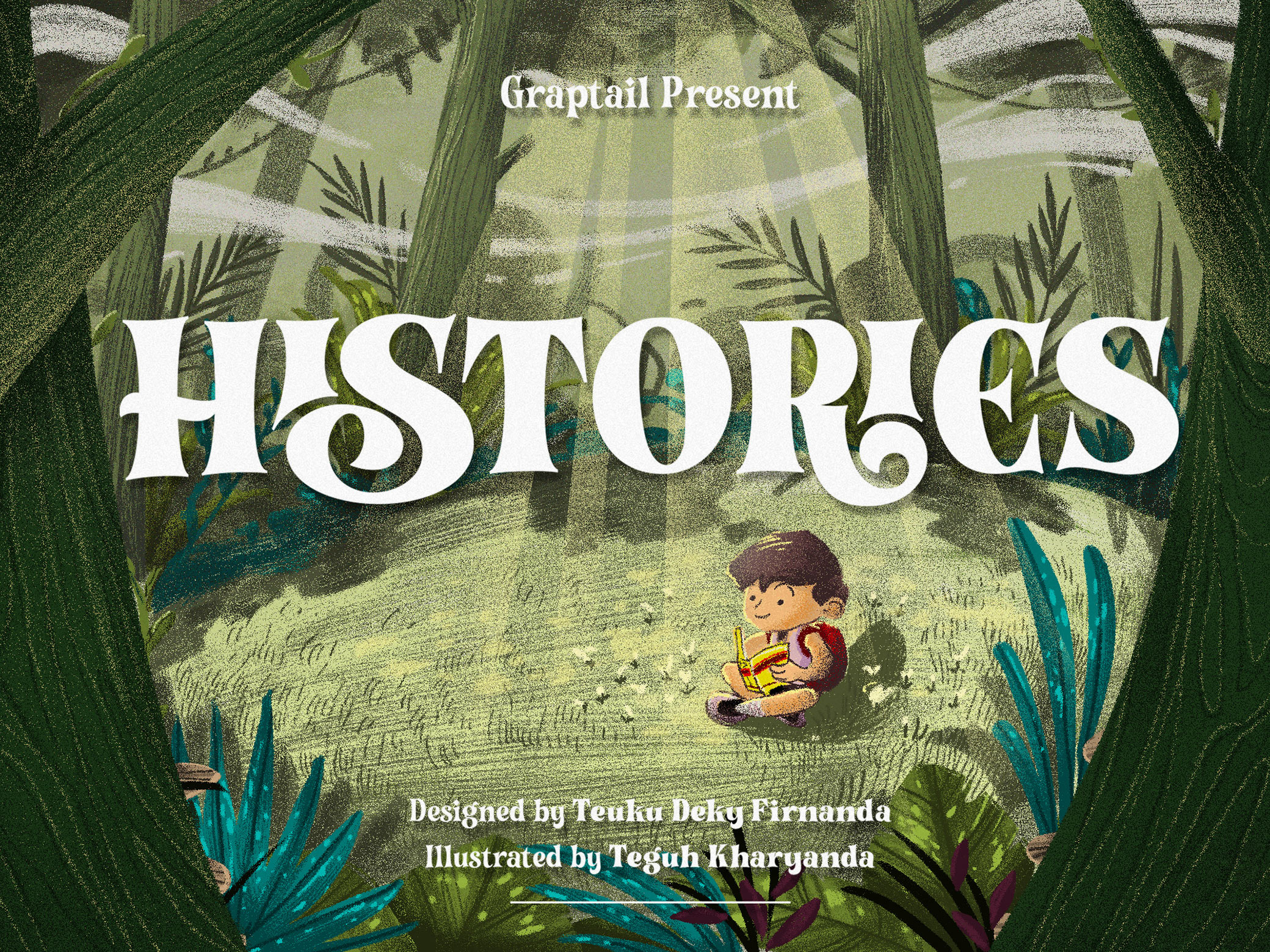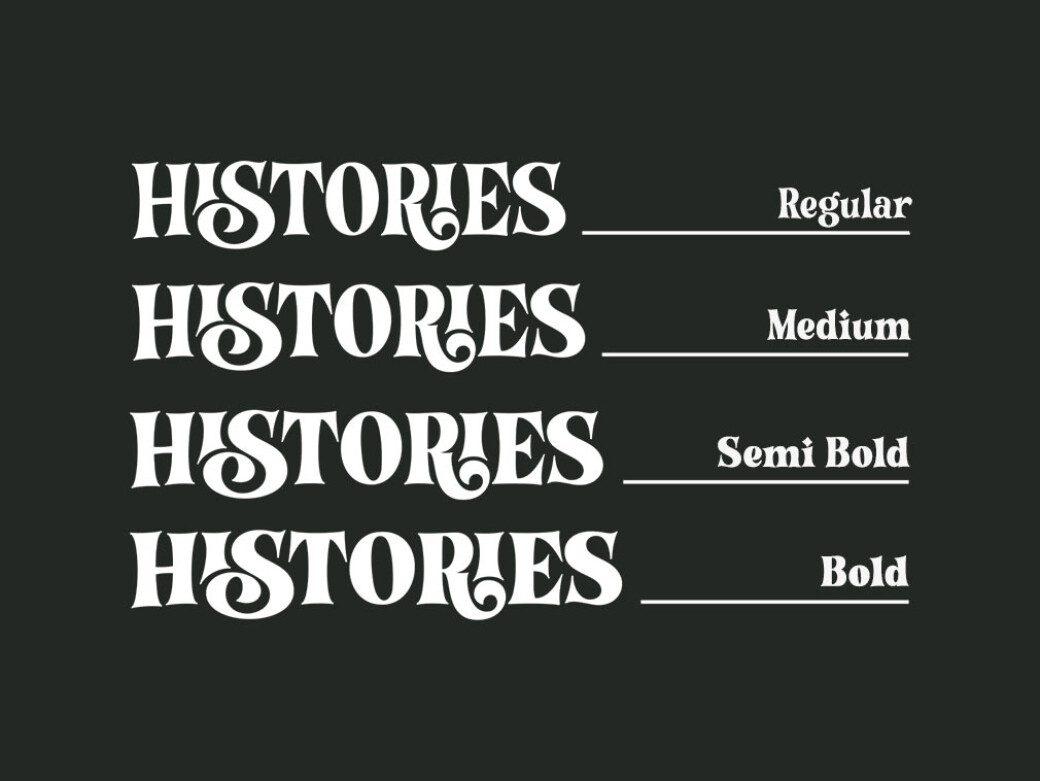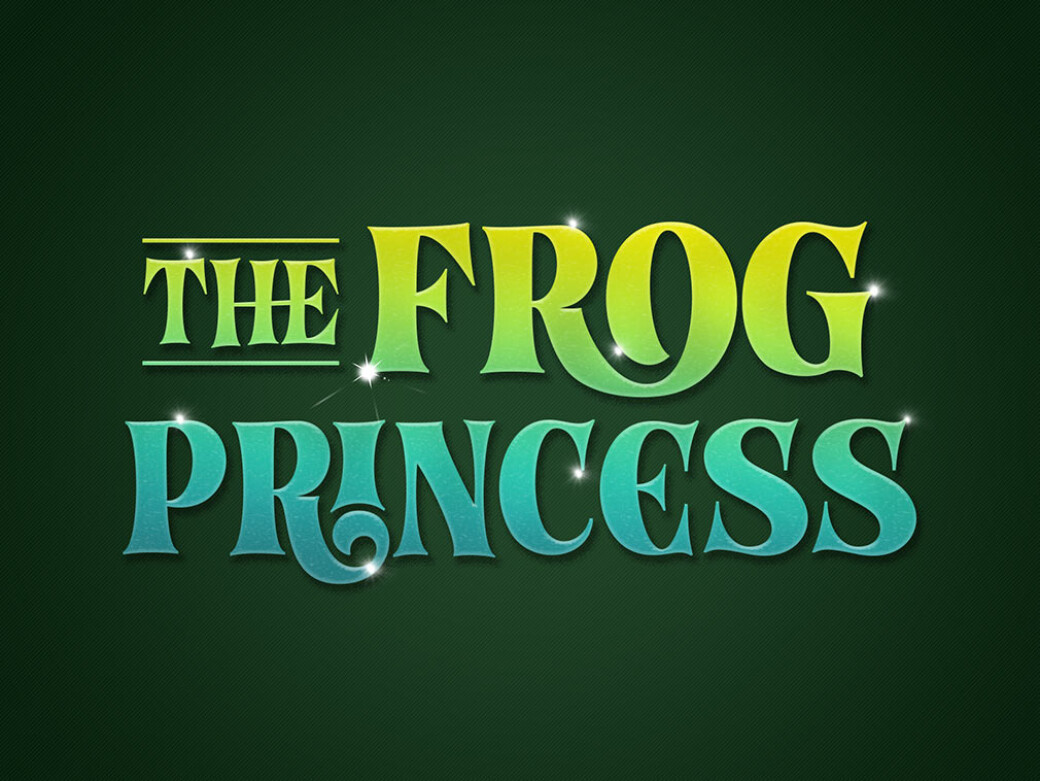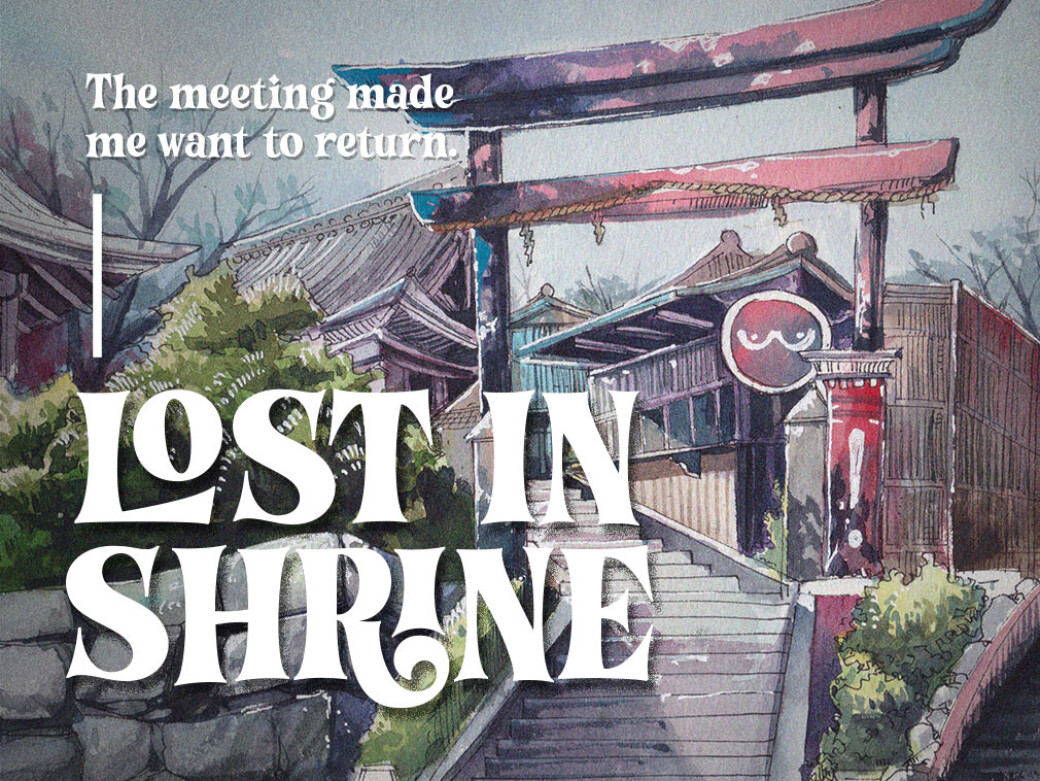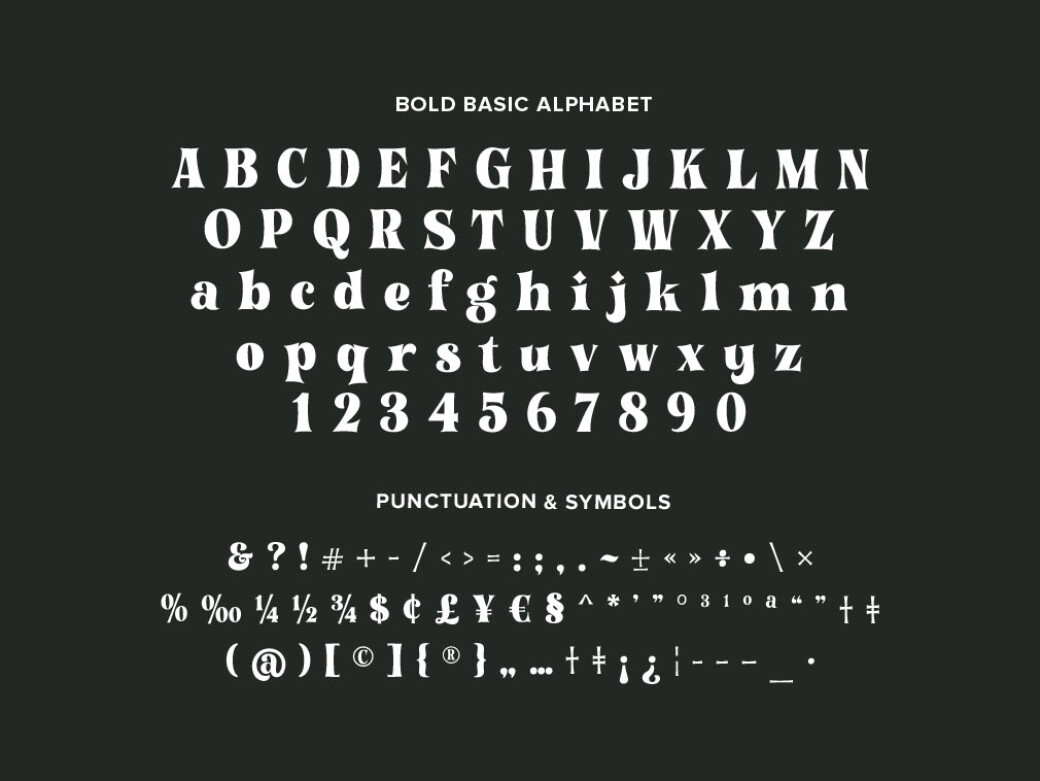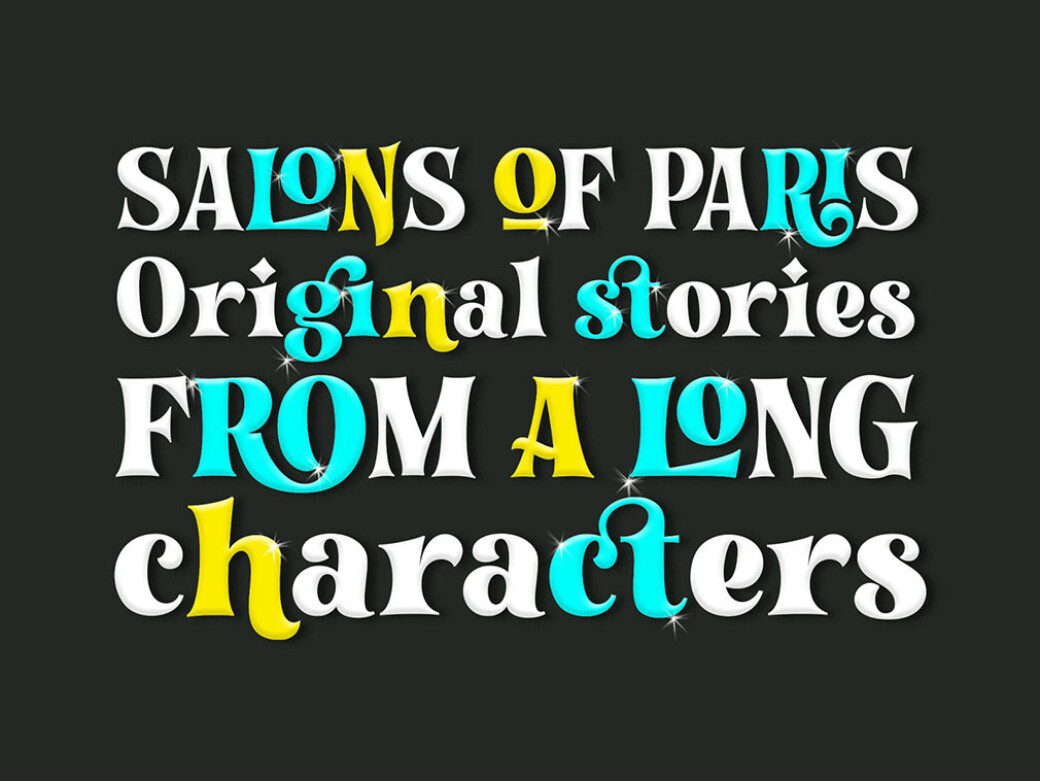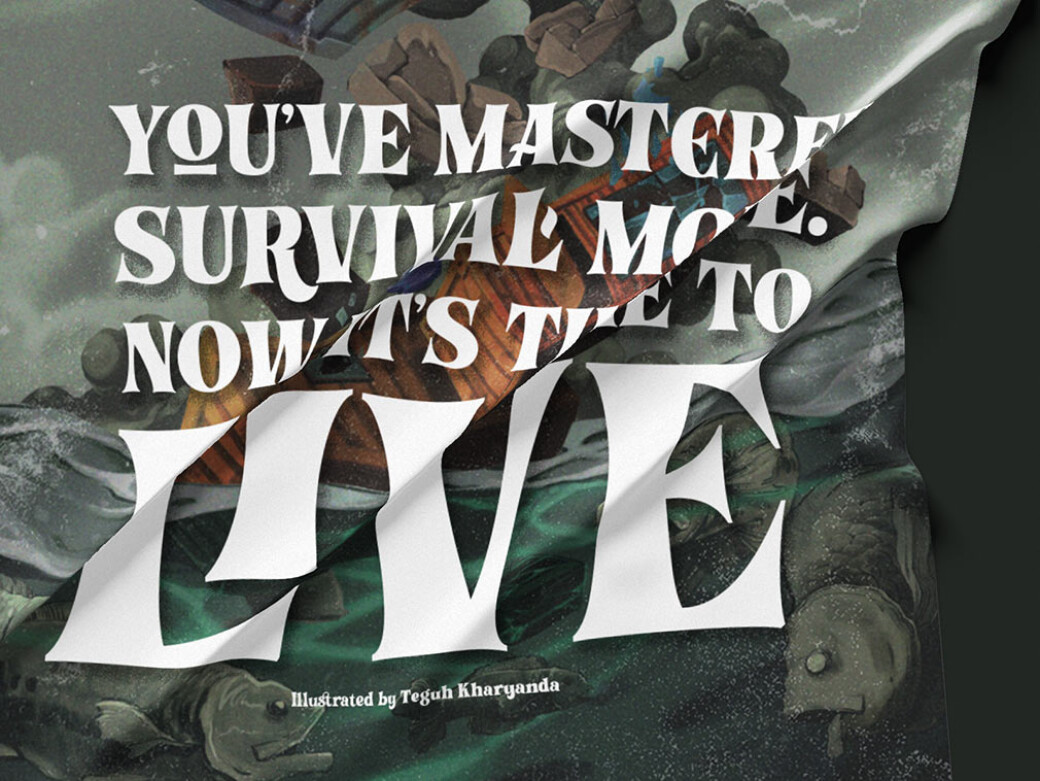
Histories: Fairytale Display Font
“Histories” has been inspired by the shape of the letters displayed on the cover of fairy tale books or animated film covers. Let the magic flow into your designs with this display font!Likewise, with the naming of the font "Histories", the message of the letters is conveyed. And this stylistic combination should also be reflected in the lowercase set which also allows to open up a spectrum of possible uses. Basic calligraphy represents a solid basis for the development of lowercase glyphs, ensuring proper interaction with uppercase letters. “Histories” features multiple ligatures and glyphs that combine the playful structure with a more attractive feel accessed via Open Type. Histories Font Family best uses for headings, logotypes, quotes, apparel design, invitations, flyers, posters, greeting cards, product packaging, book cover, printed quotes, and so on.